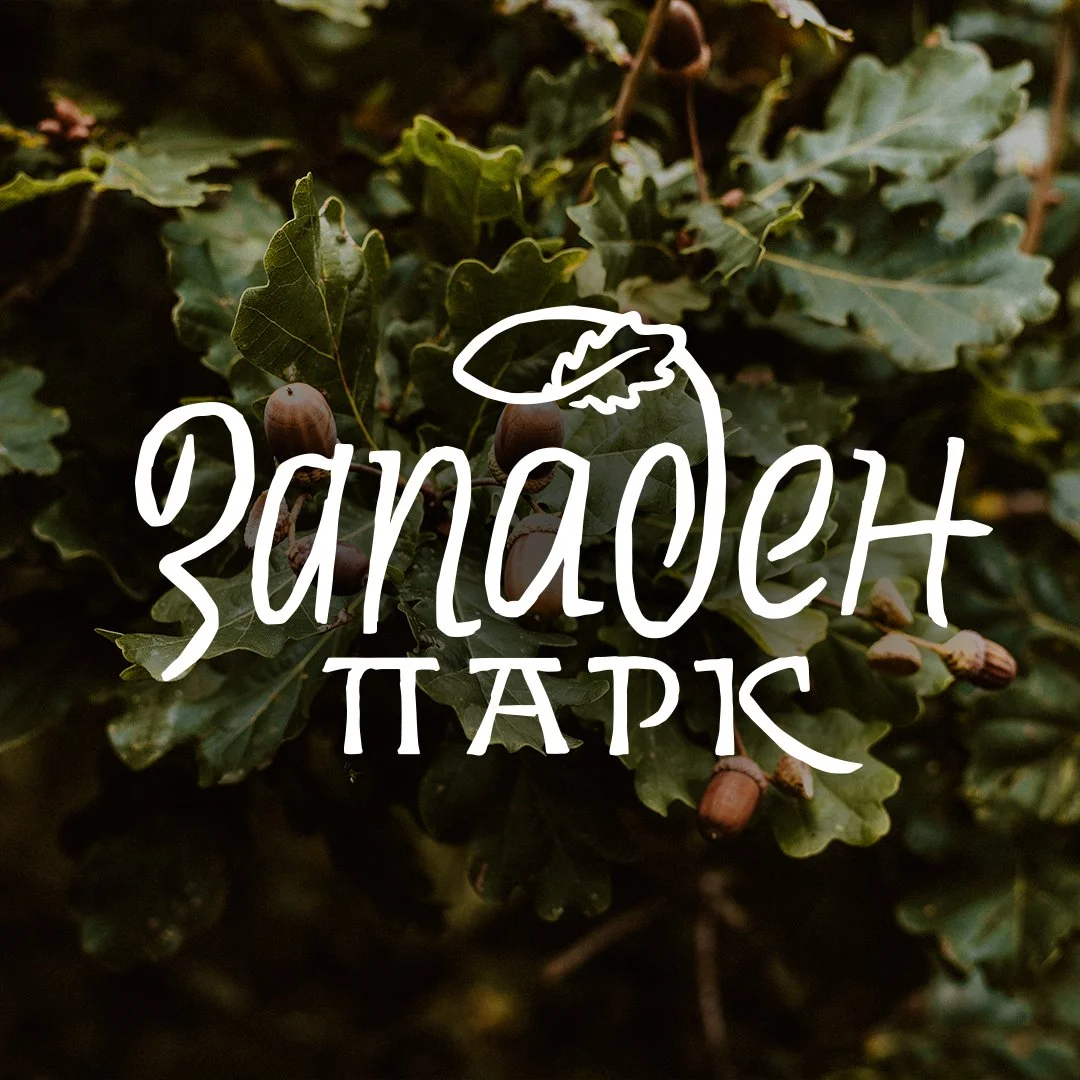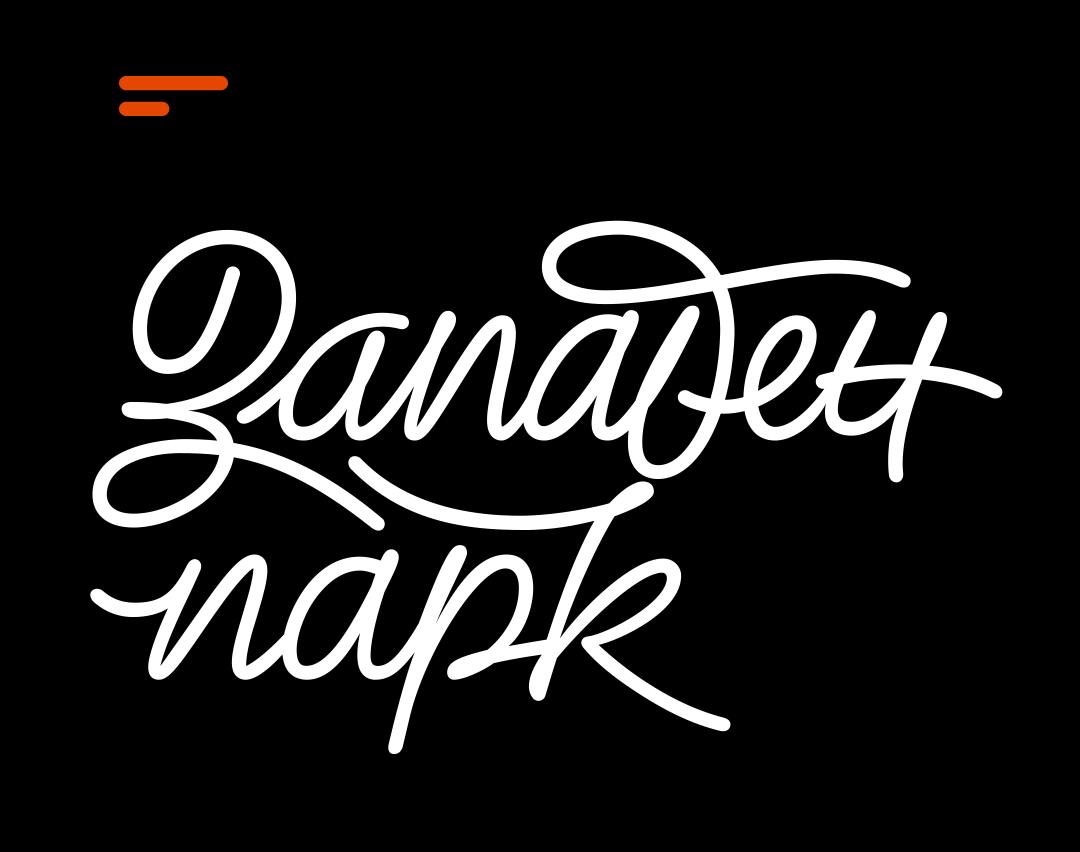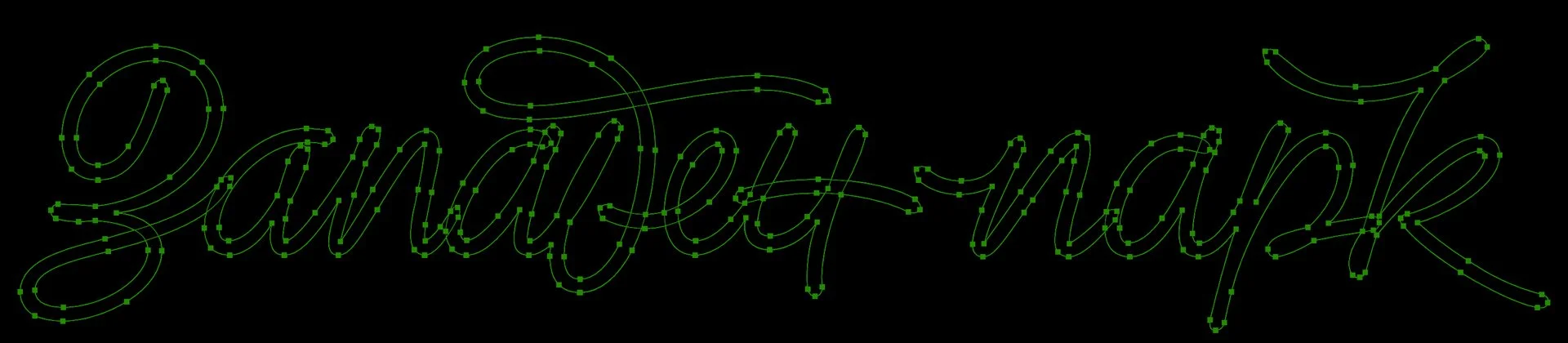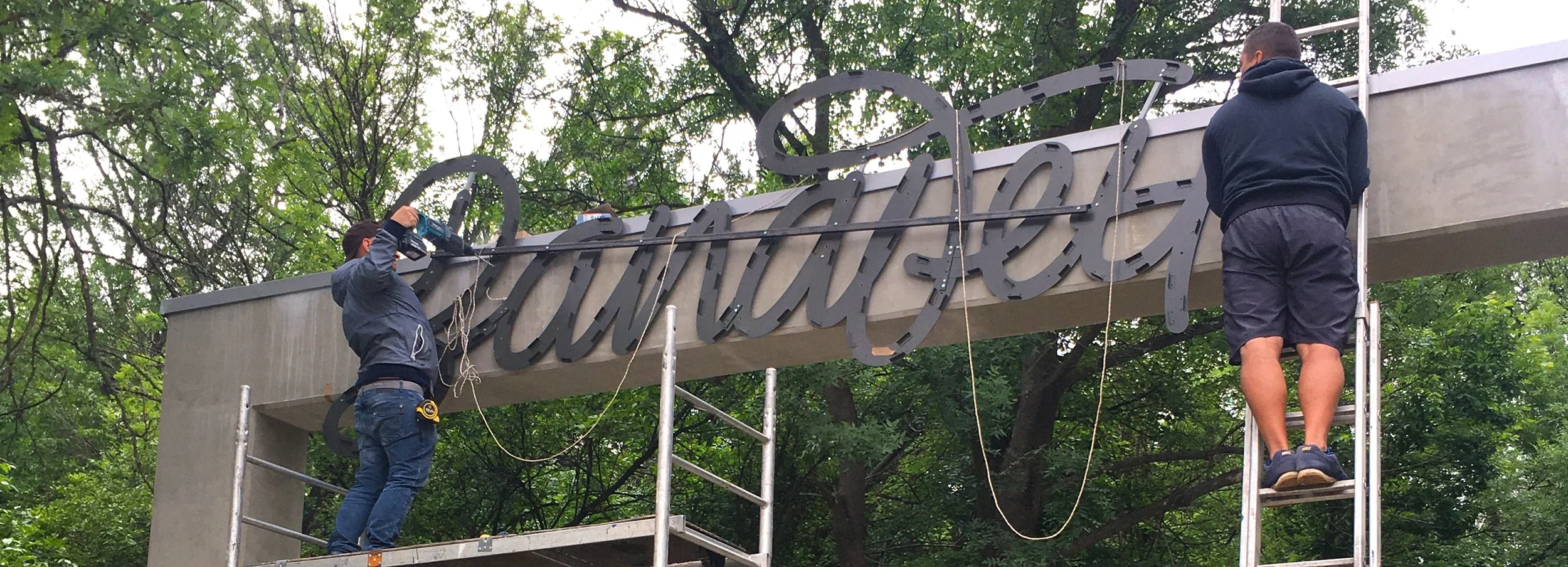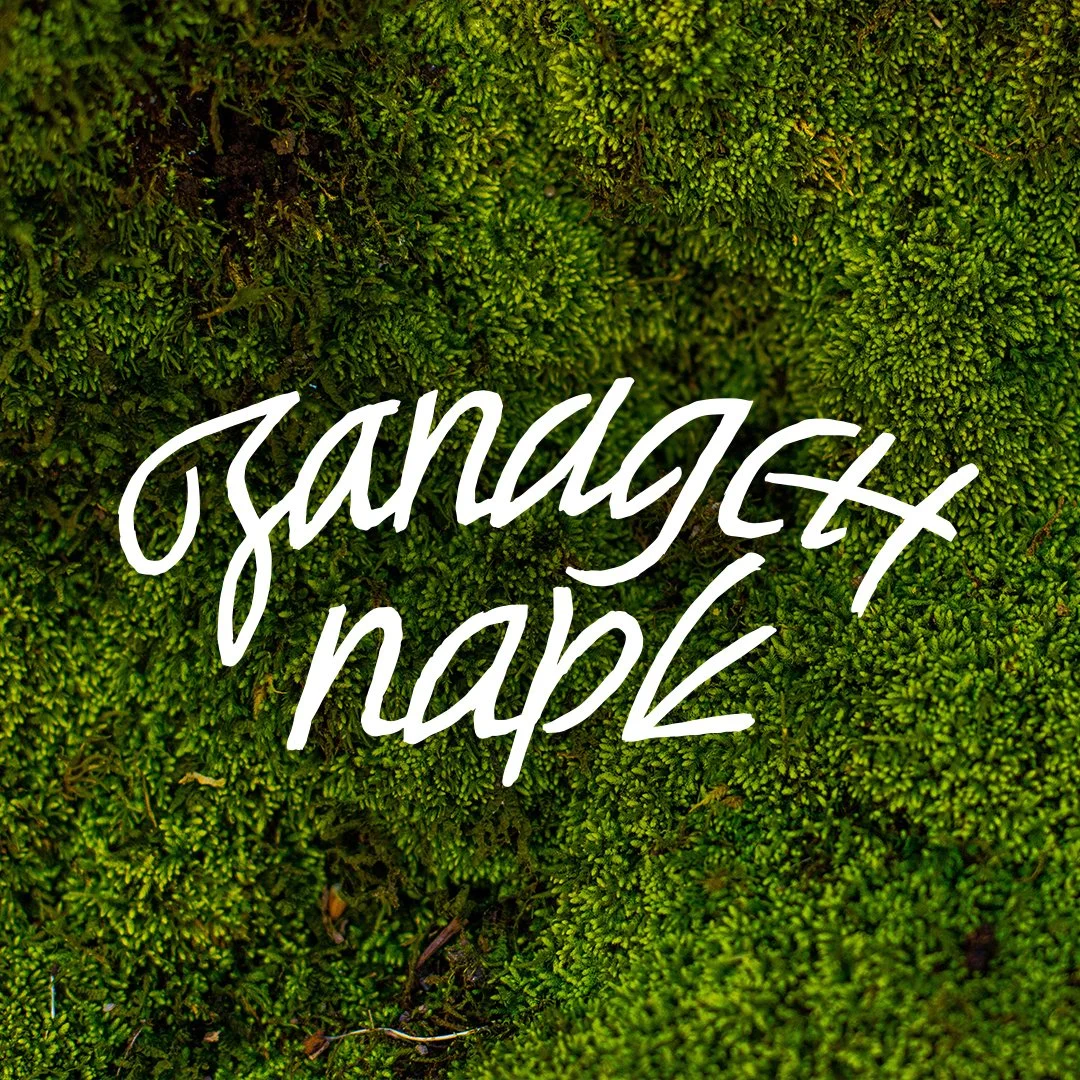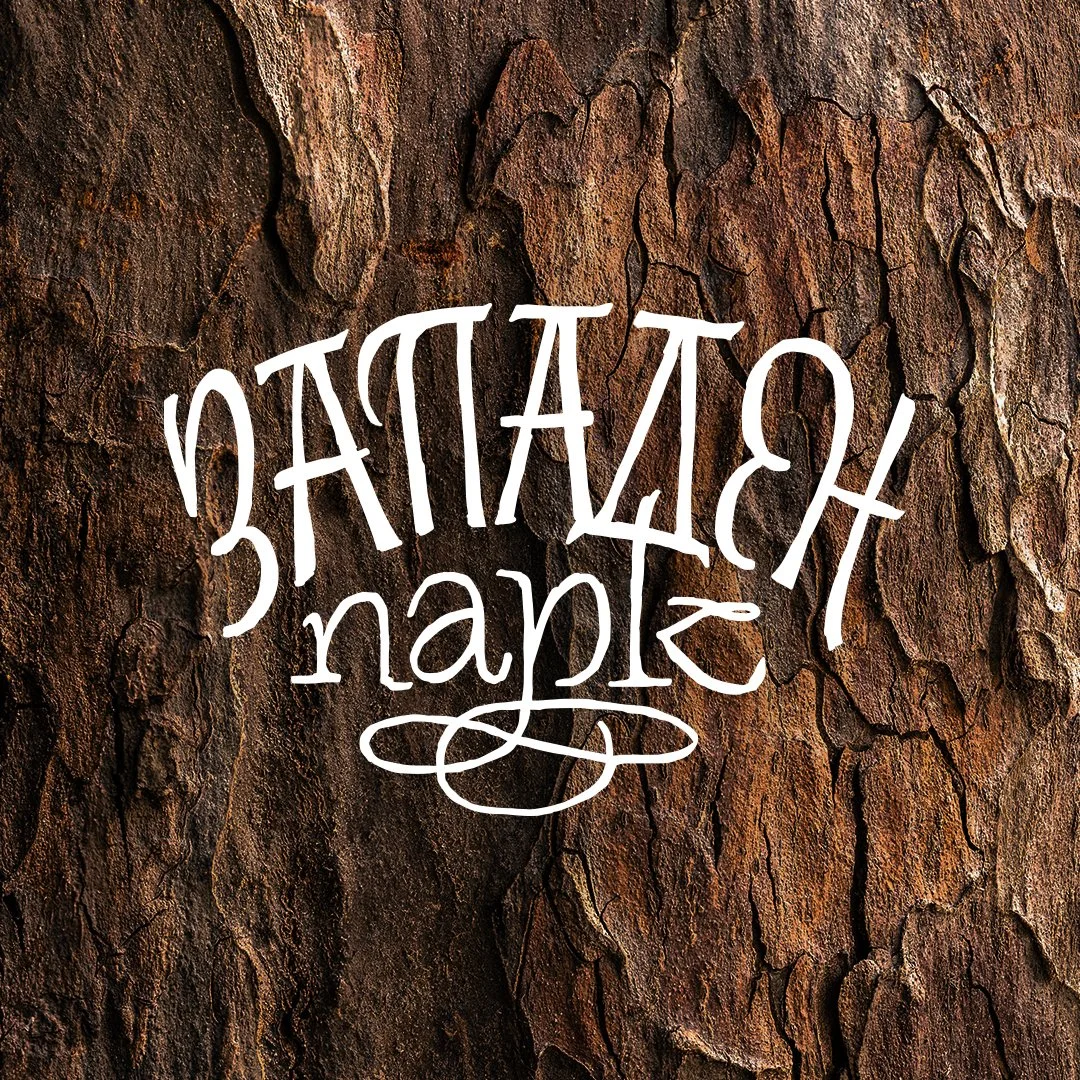
Not-so-wild West
Project: Logotype redesign
Lettering by: Todor Georgiev
In 2020 we had the pleasure and honour to work on the visual branding of Zapaden park (West park) – the second-largest park in Sofia, Bulgaria. Filip Boyadjiev was currently working on its navigational system and invited us to collaborate on its identity. Our task was to create a custom lettering piece that was to serve as the park's logotype. Filip's creative direction finally led us to a monoline script with lots of connections and handwritten touch.
Upon approval from the lead architect of Sofia Municipality, the massive dimensional signage was installed on the park's freshly reconstructed main northeast entrance. The whole composition measures a whopping 12.5 meters across and a smaller one at about 7.5 meters wide can be seen on the park's southwest gate.
We were lucky to have Lazar Dimitrov take lovely drone shots of the installed works and compile a lengthy video.
Shown below are several rough proposals dropped in the process.